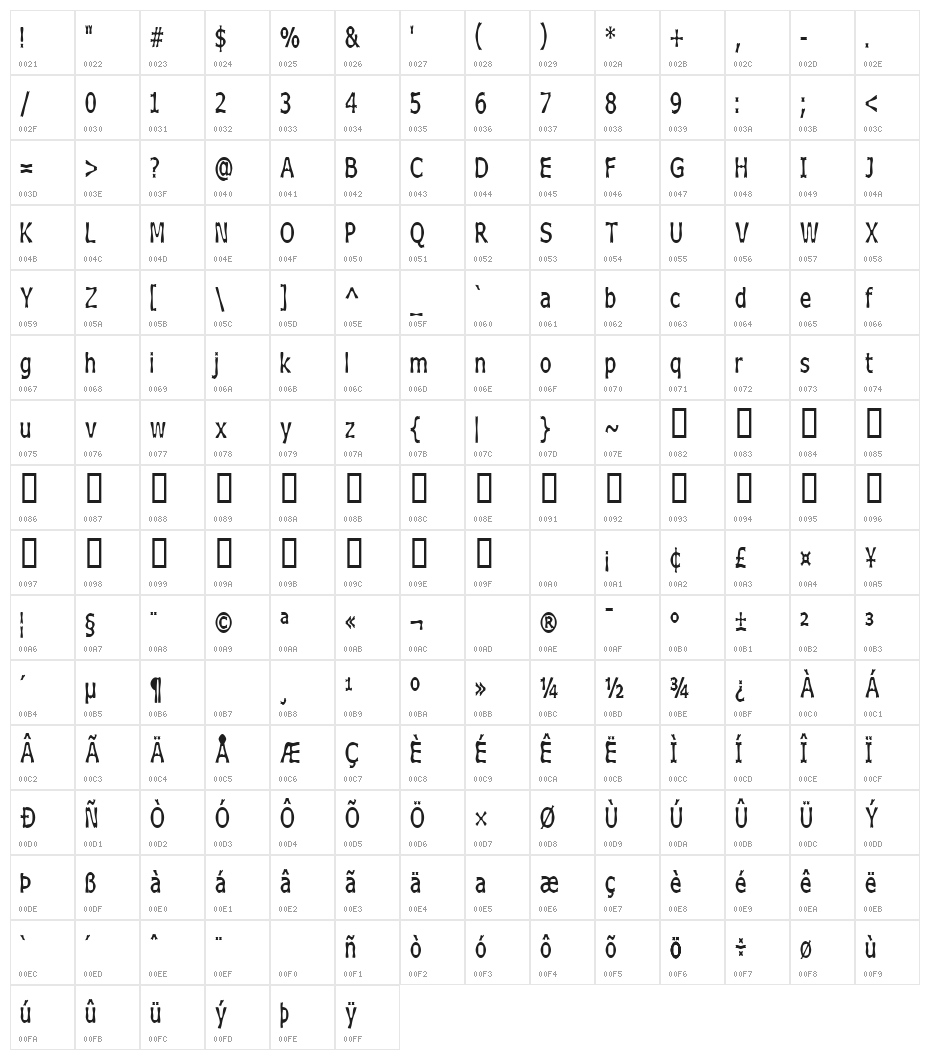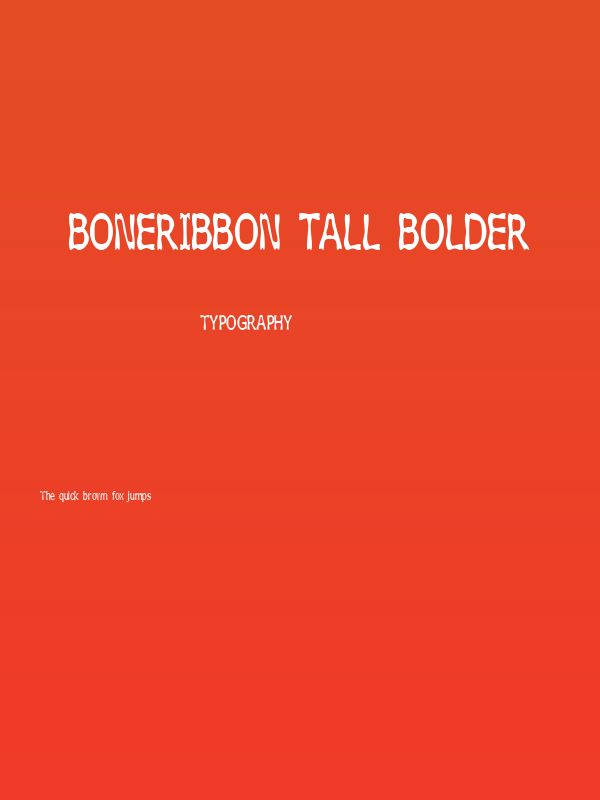
Boneribbon Tall Bolder Font
Boneribbon Tall Bolder Description
This font features a unique, hand-drawn style with a playful and slightly irregular appearance. The characters are tall and bold, with a whimsical touch that adds personality to the text. The strokes are uneven, giving it a handcrafted feel, while maintaining legibility. The uppercase and lowercase letters are distinct, with the uppercase being more pronounced. Numbers and special characters follow the same artistic style, making the font versatile for various creative projects.
Proposed ProjectsIdeal for posters, children's books, greeting cards, and creative branding projects.